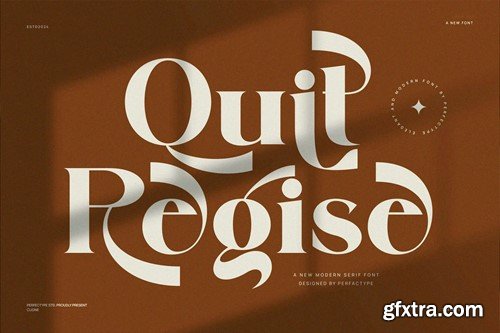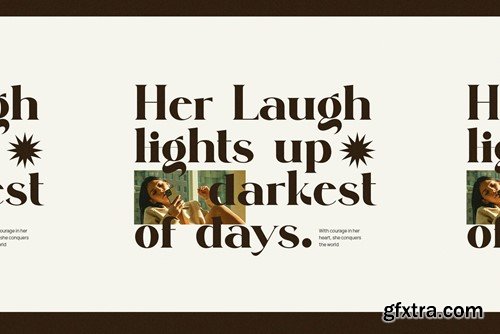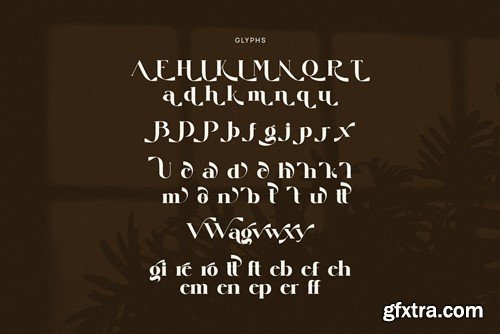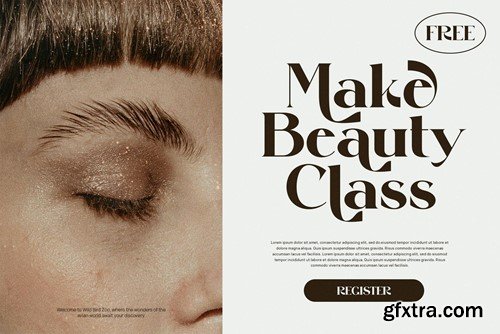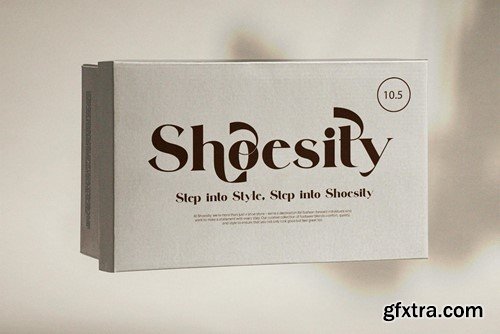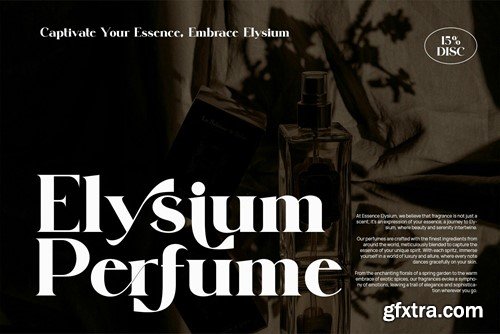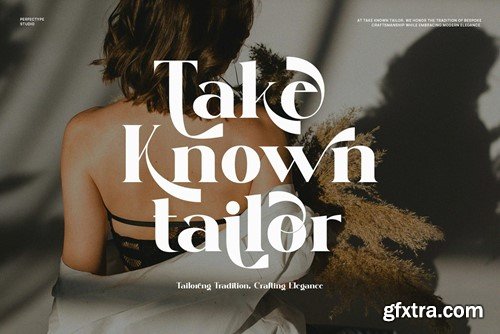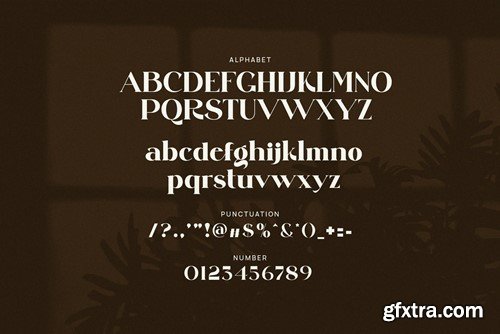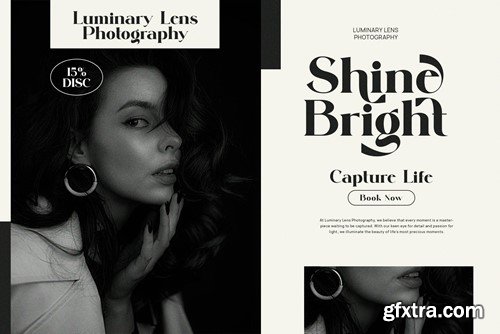
Quit Regise Elegant Serif Font Typeface
This is a very elegant and classy font for all branding and logo designs This type of serif font is made with elegance and luxury so it is very suitable for all your design uses. This type of font is very suitable for your various needs such as branding projects, logos, social media posts, advertisements, labels, product packaging, photography, wedding designs, watermarks, invitation product designs, stationery, and any project, created at a high level legibility.